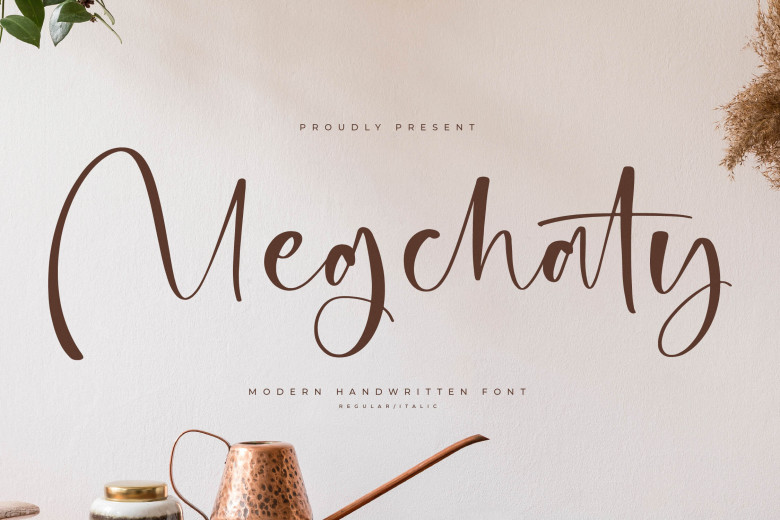
Megchaty Font
Megchaty is a beautiful script font with timeless appeal and subtle curves that oozes elegance and sophistication, is ideal for wedding invites, branding designs, elegant invitations or elegant designs of all kinds. With graceful strokes and intricate detail capturing the eye. Perfect for invitations to weddings and elegant designs – Megchaty will add that touch of luxury.
Megchaty Handwritten Script Font